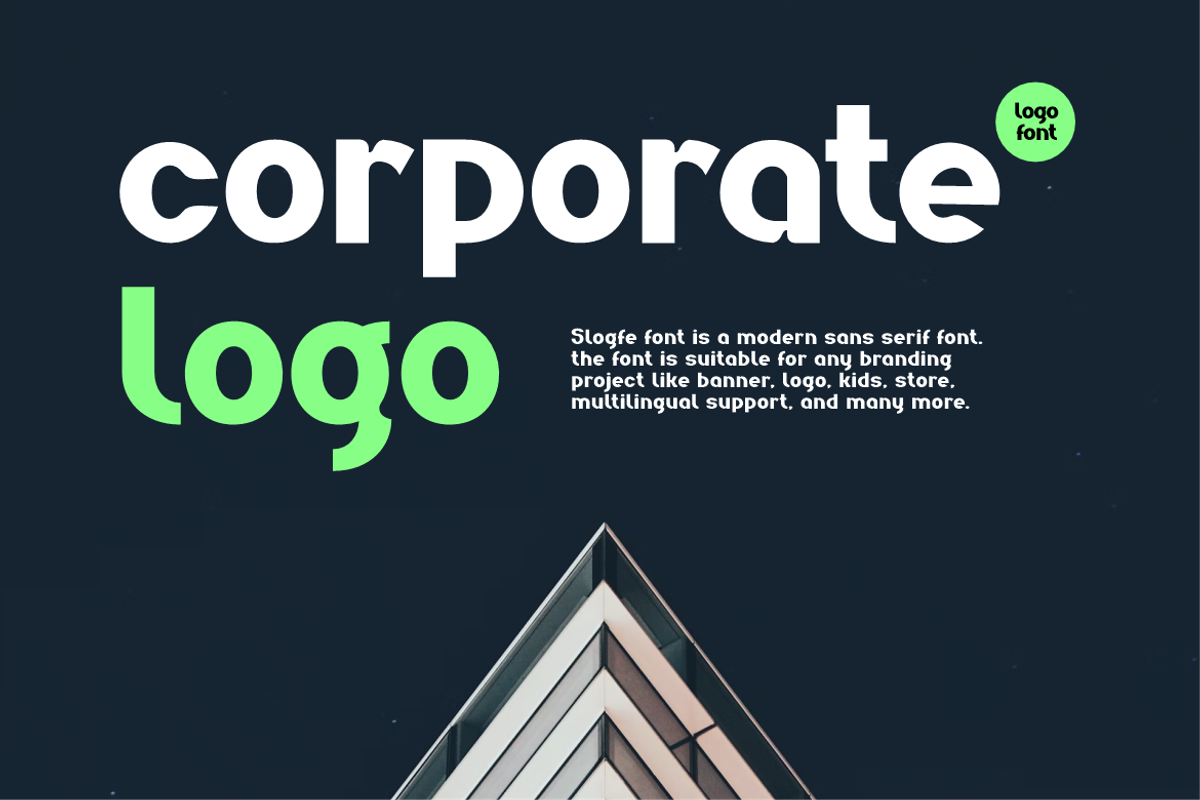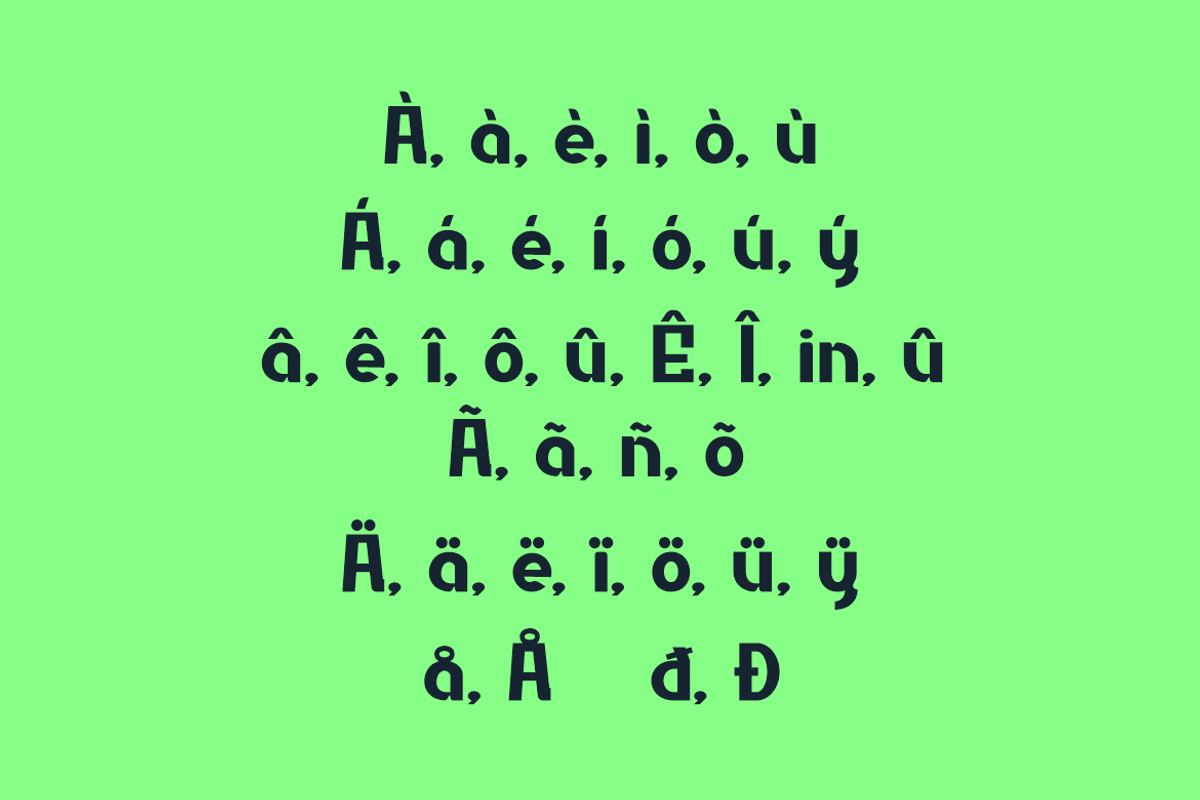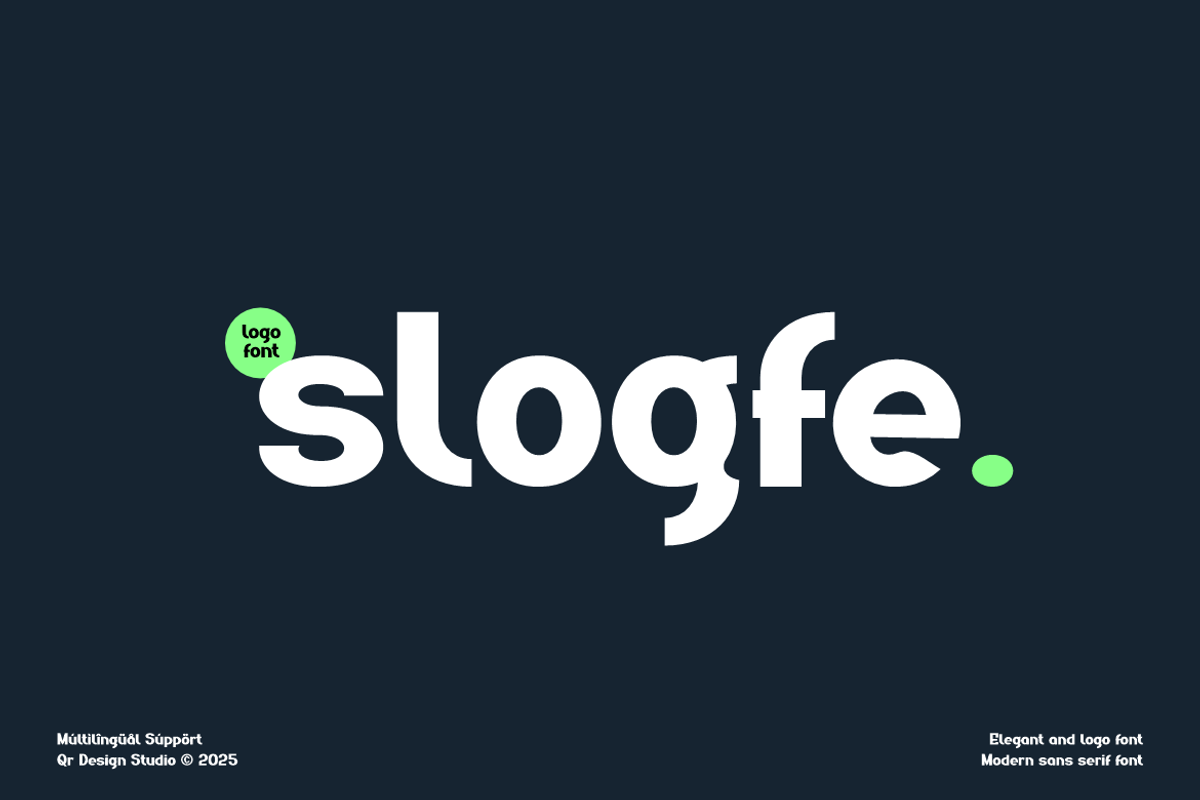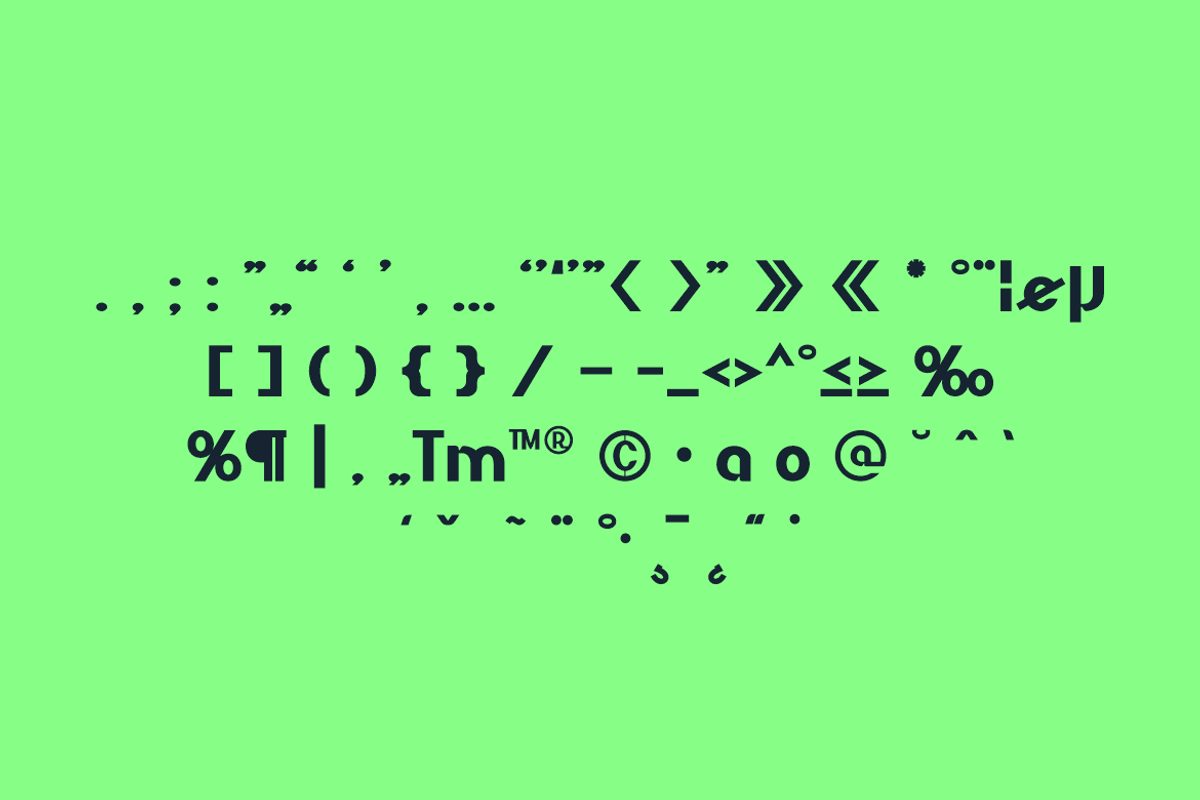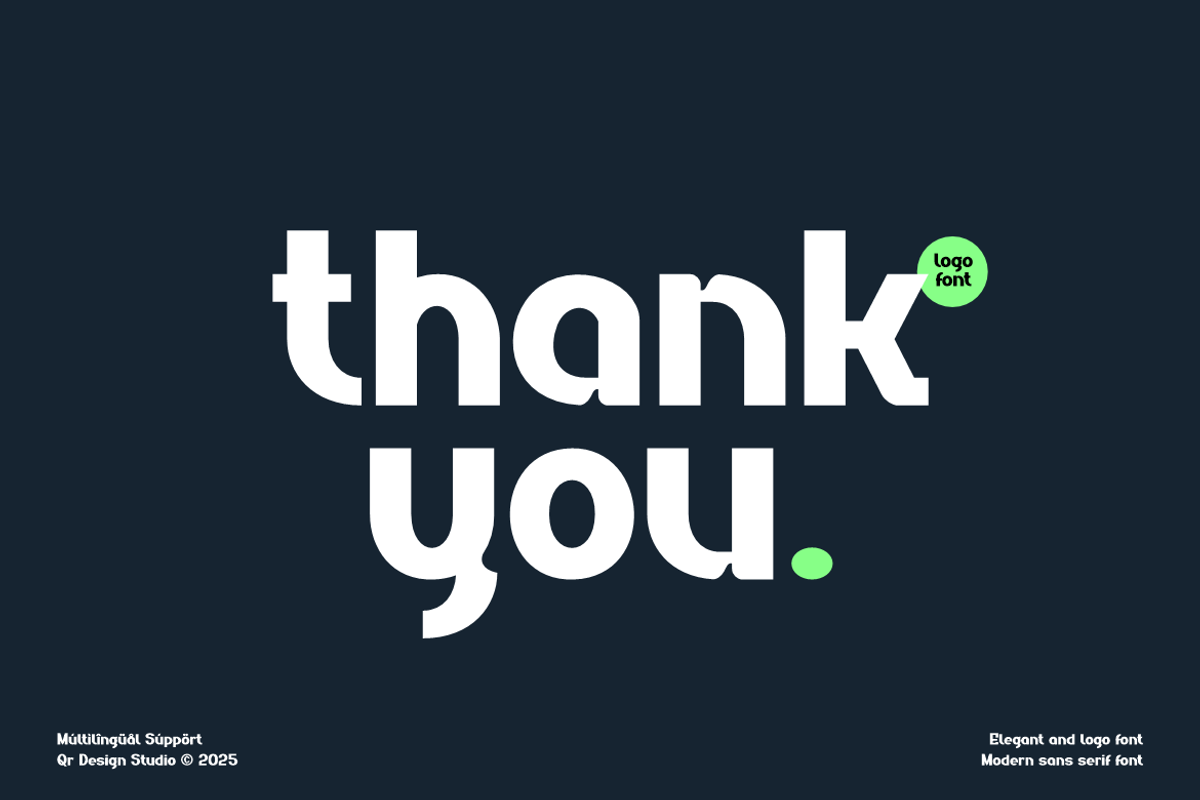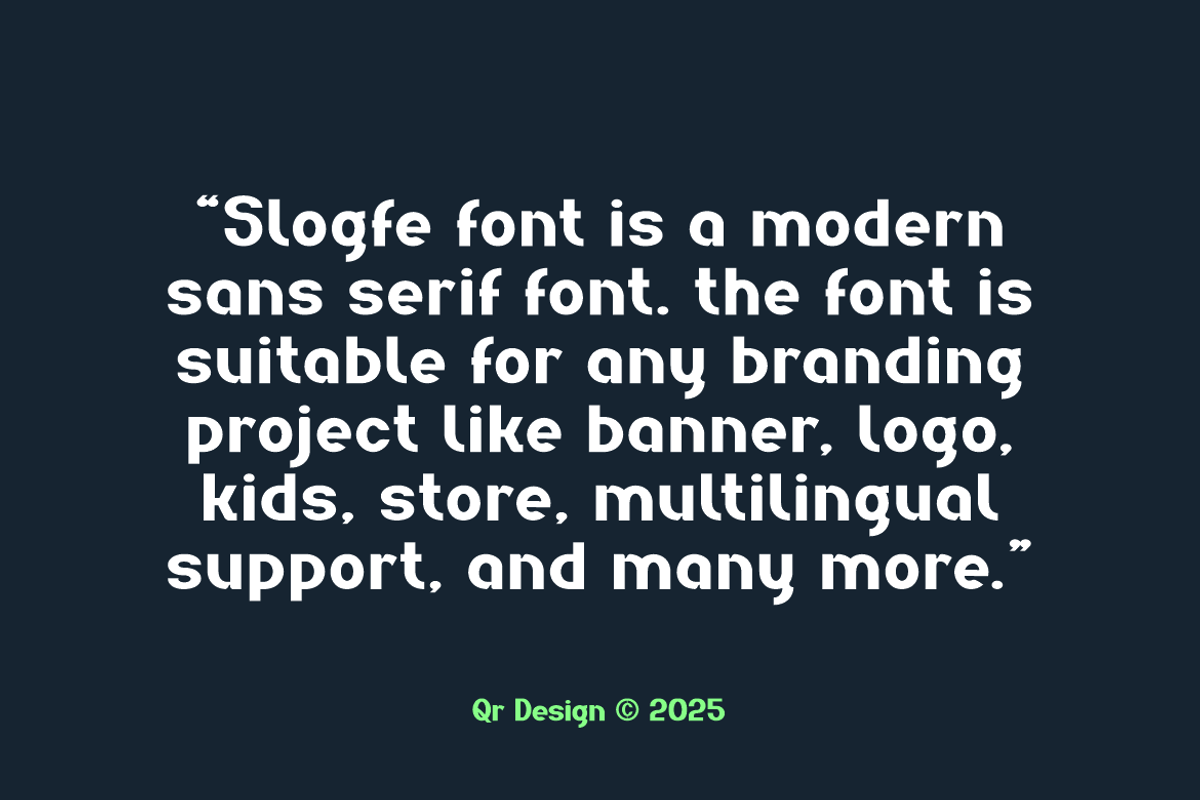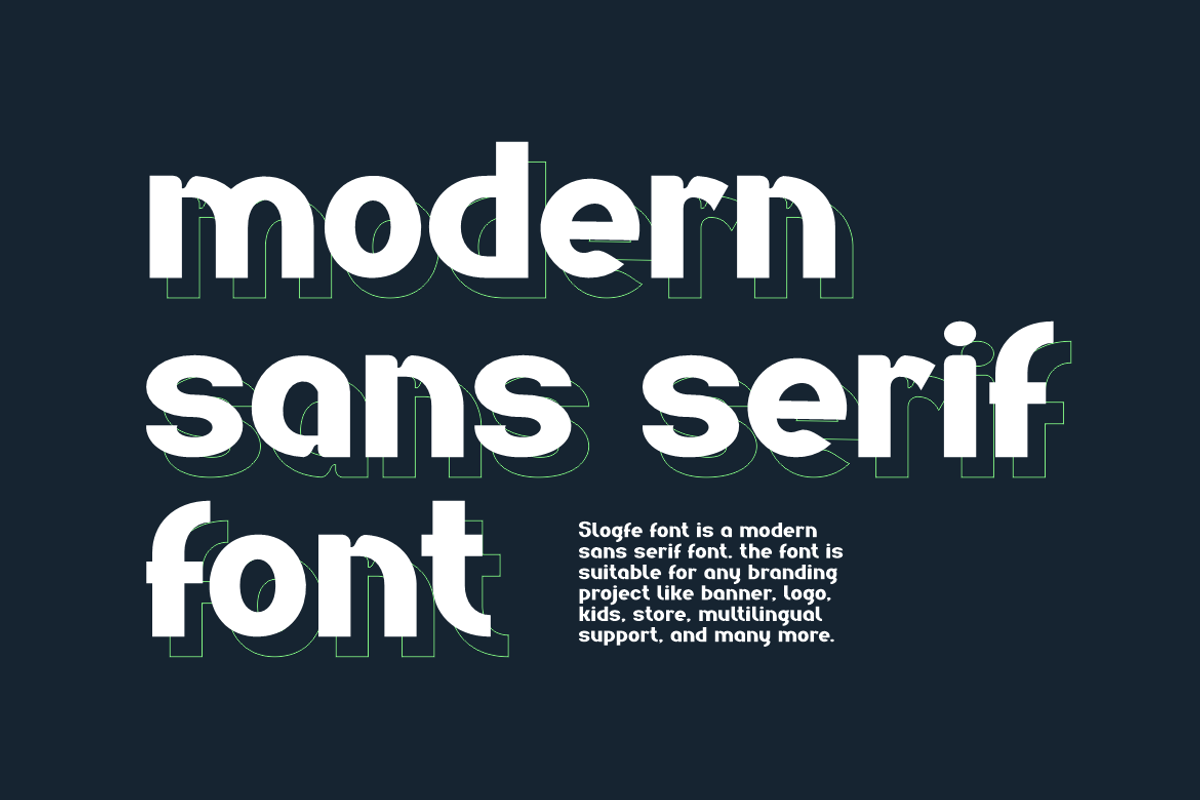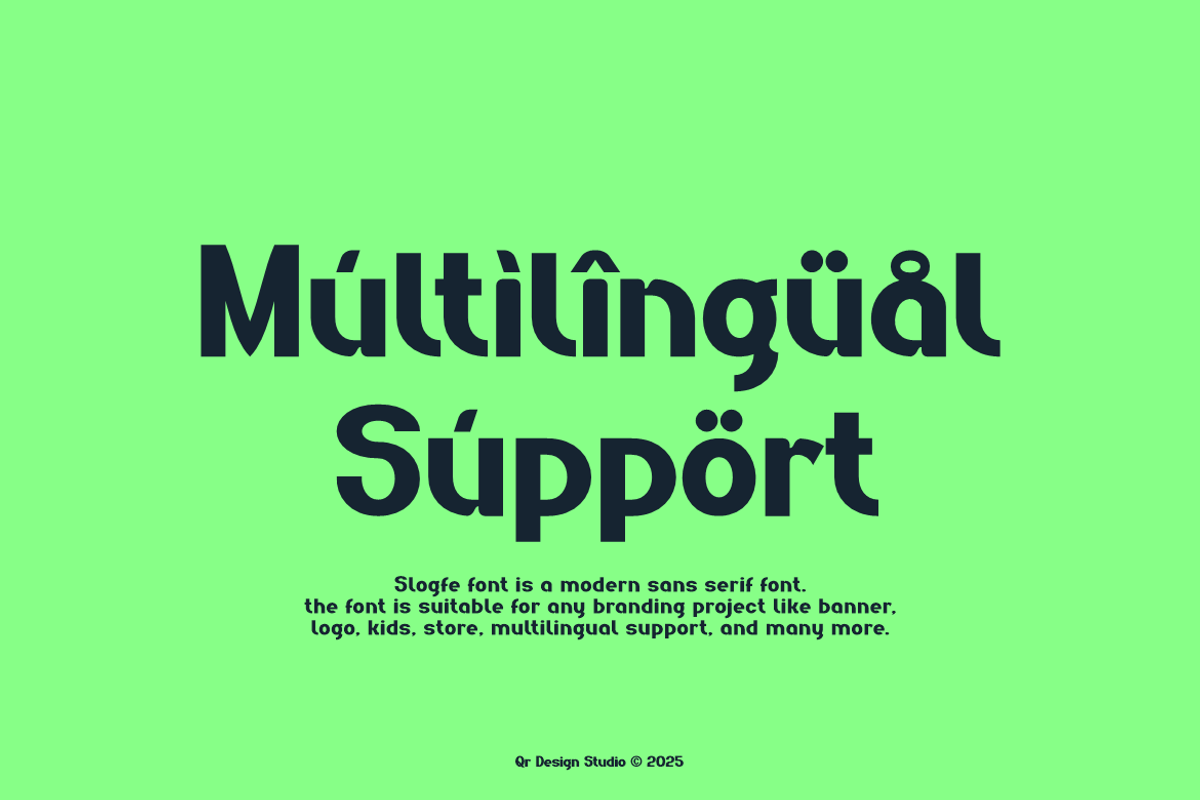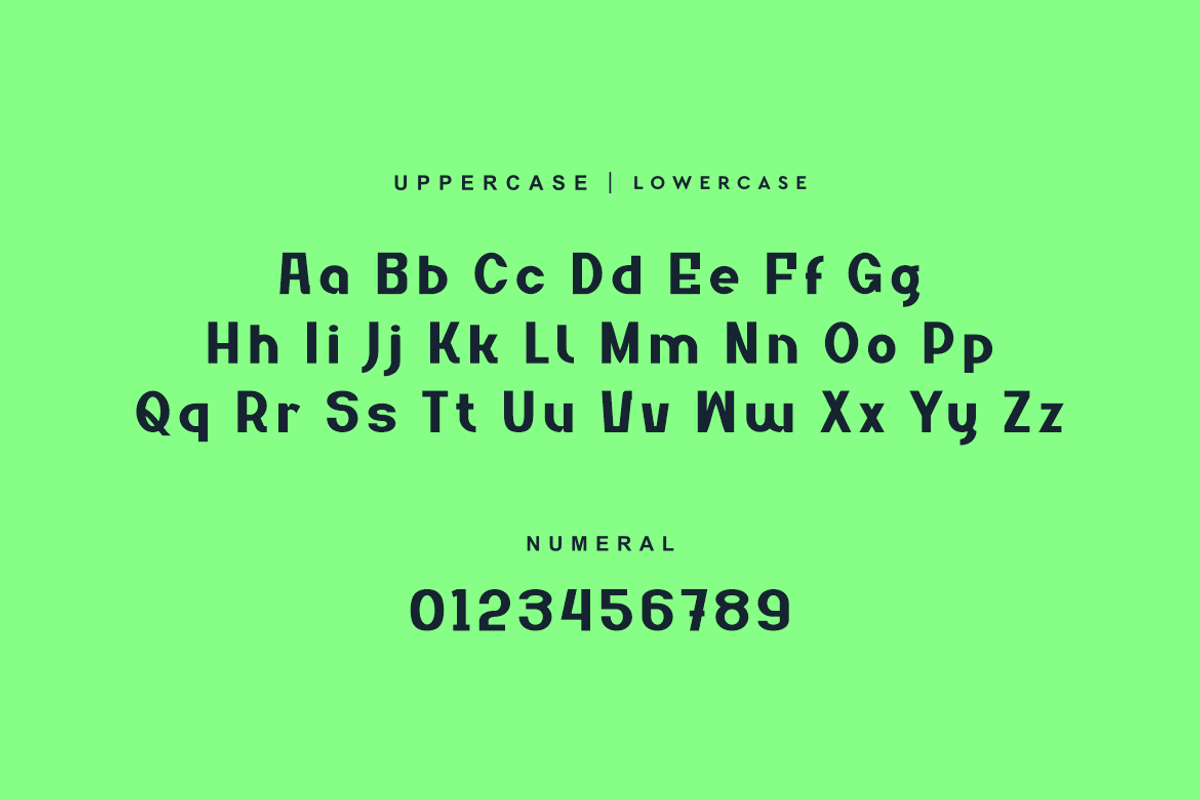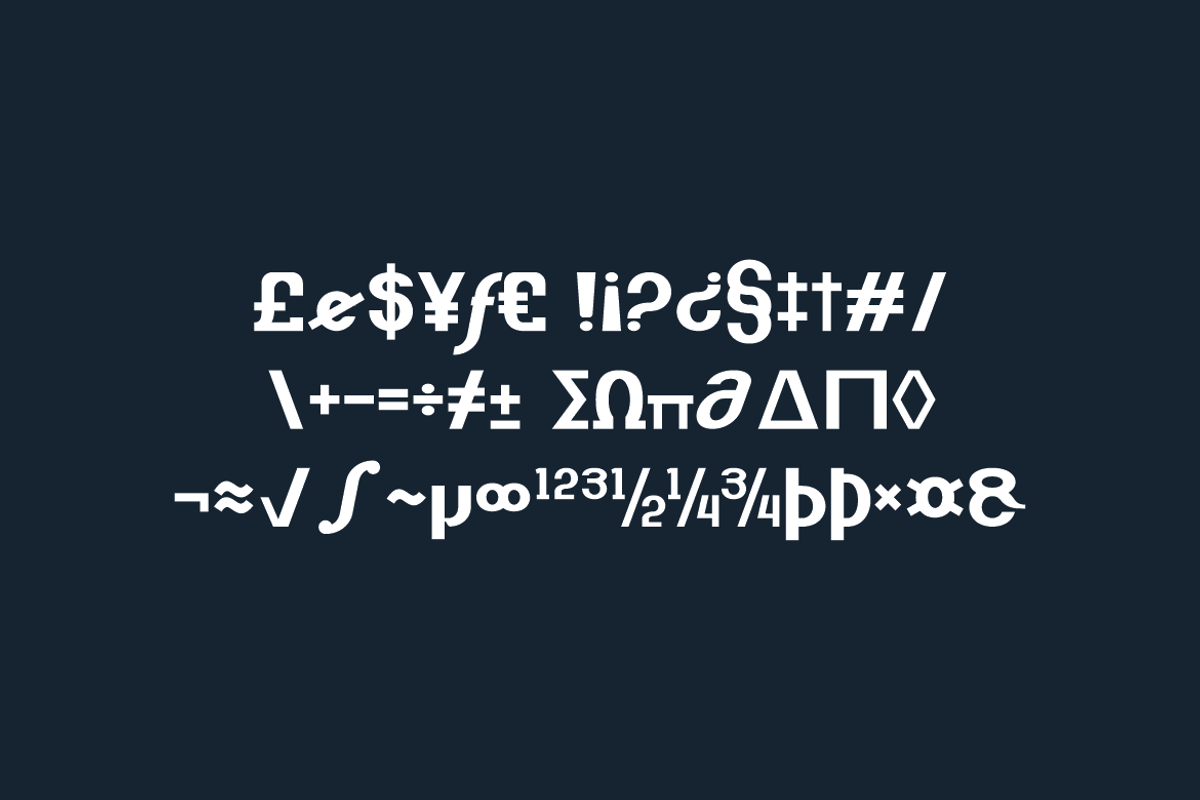
Slogfe - Corporate Logo Font
Slogfe Font is a corporate logo and authentic display font. The font is suitable for any branding project like poster, logo, sport, and many more. Outstanding in a wide range of contexts.